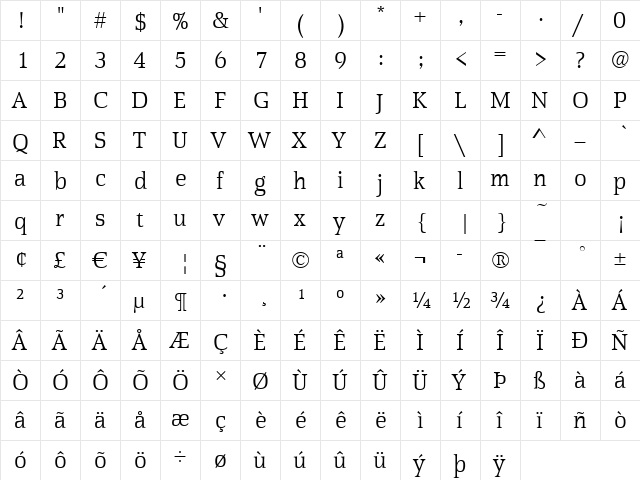
Pollock-Light Regular
Design Context for Pollock-Light Typeface
Pollock-Light takes a measured approach to typography — its balanced proportions and neutral character make it a reliable workhorse for both digital and print work. Its slender proportions lend an understated elegance to any composition.